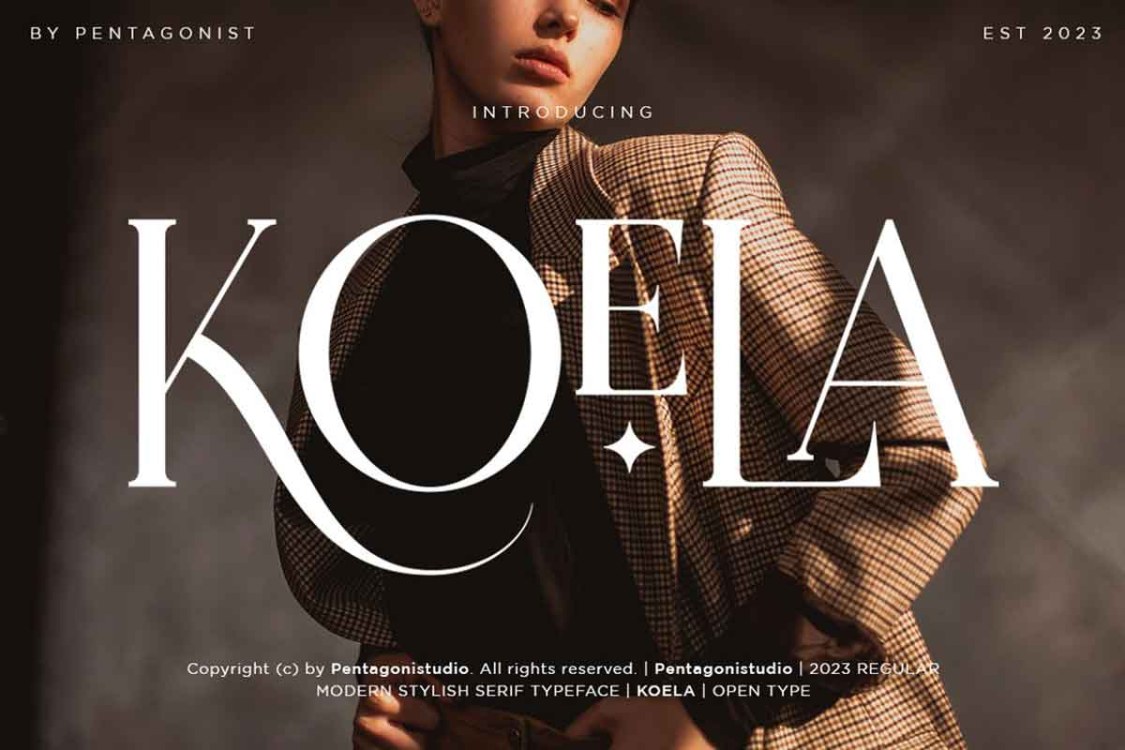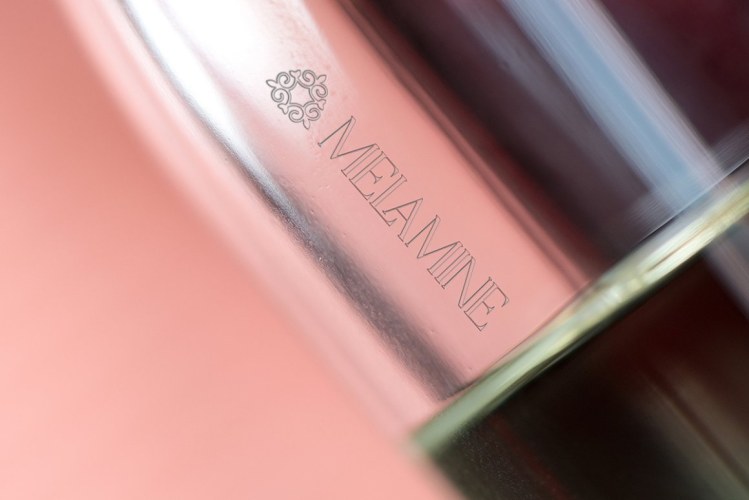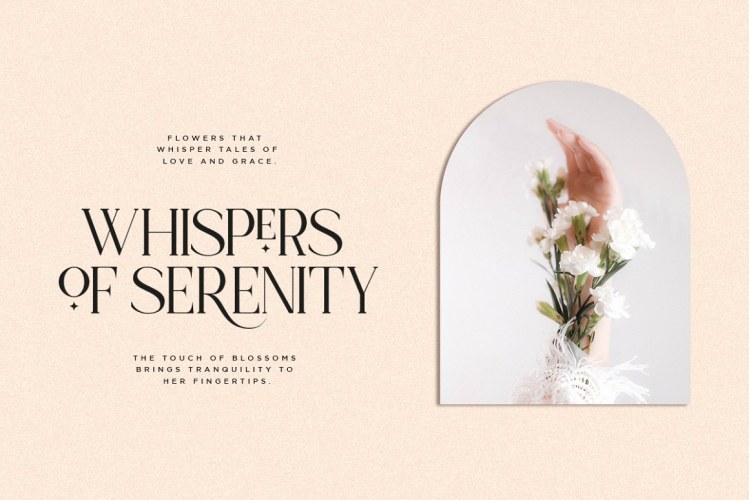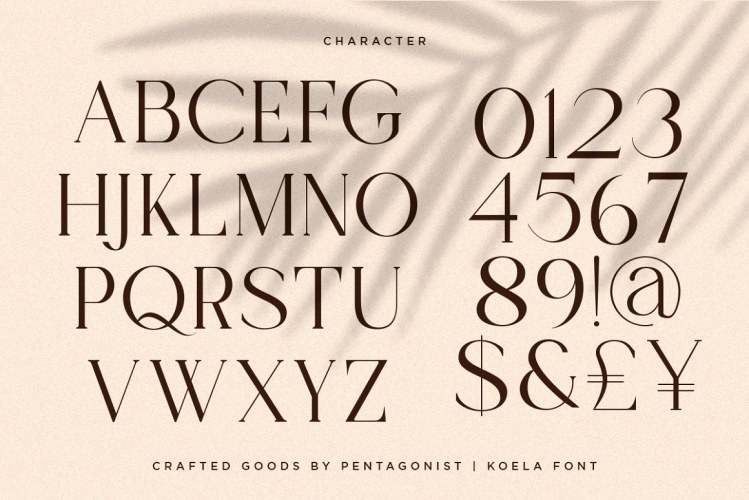
Koela – Modern Serif Font
Koela Is A Modern Serif Font with Stylistic Alternates and Ligatures.
Font Features :
Koela – Modern Serif Font is a Serif Fonts font that brings a professional and versatile look to your projects. Koela Is A Modern Serif Font with Stylistic Alternates and Ligatures.